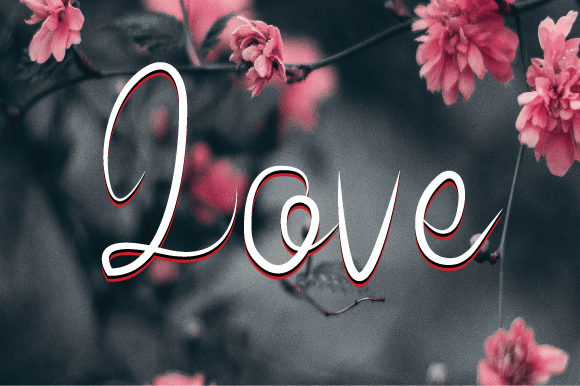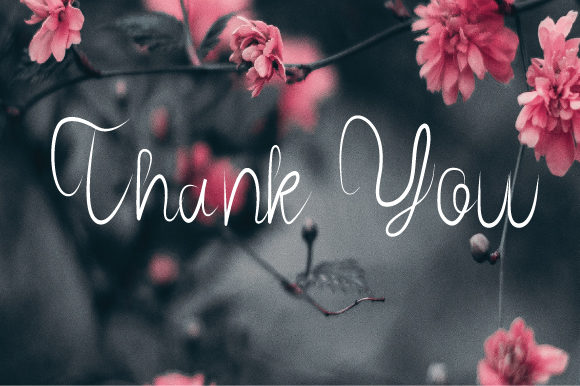
Introduction to Krismi Font
As a designer, there’s nothing quite like the thrill of finding the perfect font to elevate a creative project. For me, it’s often the moment when the words on the page come together in a way that feels truly special. And that’s exactly what happens when you use the Krismi Font – a simple yet beautiful script font that adds a delicate touch to any design.
Whether you’re crafting a wedding invitation, a greeting card, or any other design that requires a personal, handwritten feel, Krismi Font is the perfect choice. Its high-quality design makes it a valuable resource for designers, and the fact that it’s available for free download is just the icing on the cake. With a transparent background, you can easily integrate it into your design without any fuss.
With its elegant lines and effortless charm, Krismi Font is sure to leave a lasting impression on your audience. So why not give it a try and see how it can elevate your next creative project?
Key Features of Krismi Font
- Unique, modern design with a transparent background for flexibility
- Easy to use and customize for various design needs
Honest Review: Krismi Font
As a designer, I’m always on the lookout for high-quality design resources that can elevate my creative projects. Recently, I stumbled upon the Krismi Font and I’m excited to share my honest review.
- ✨ Unique and playful design style that’s perfect for creative projects
- ✨ High-quality typography that’s clear and easy to read
- ✨ Transparent background, making it easy to use on any design
One of the things that stood out to me about the Krismi Font is its versatility. It’s perfect for use in creative projects, such as graphic design, web design, and even print materials.
- ⚠️ Limited font styles available, which may not be suitable for all design needs
- ⚠️ Not as extensive a character set as some other fonts, which may limit its use in certain languages
Overall, I’m impressed with the Krismi Font and would definitely recommend it to fellow designers. While it may have some limitations, its unique design style and high-quality typography make it a valuable addition to any design resource library.
Tips for Getting the Most Out of Krismi Font
Use the Krismi Font on a transparent background to create a clean and modern design. Experiment with different font sizes and styles to add visual interest to your creative project. You can also combine the Krismi Font with other design elements to create a unique and eye-catching design.
The Krismi Font is suitable for a wide range of creative projects, including logos, brochures, business cards, and social media graphics. Its high-quality design and transparent background make it an ideal choice for designers who want to create professional-looking designs quickly and easily.